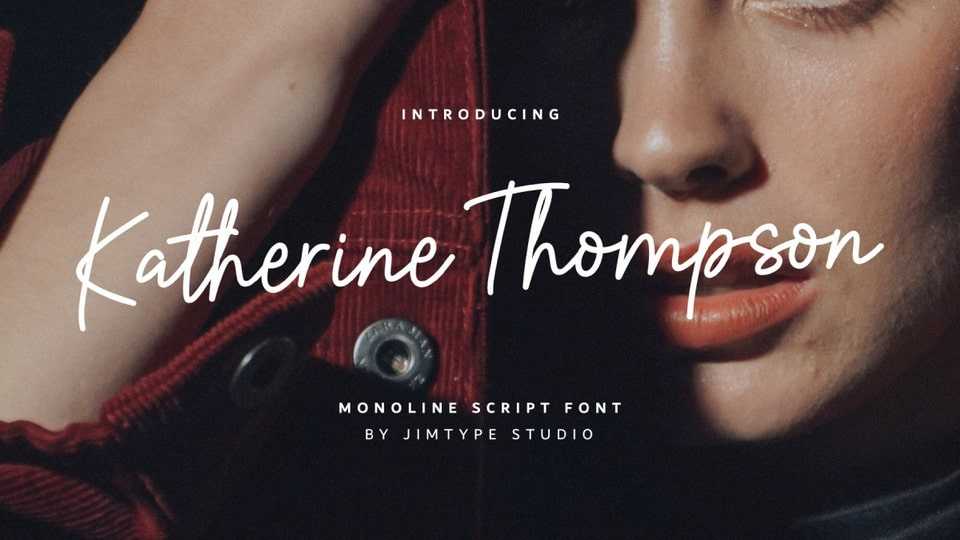
Katherine Thompson Font › Fontesk – Download Grátis
Download Katherine Thompson font, a monoline signature script typeface. Stylish casual charm makes it appear readable, and, ultimately, incredibly versatile for branding, logo, blog headline, photography watermark, social media posts or anything that need a stylish casual taste.